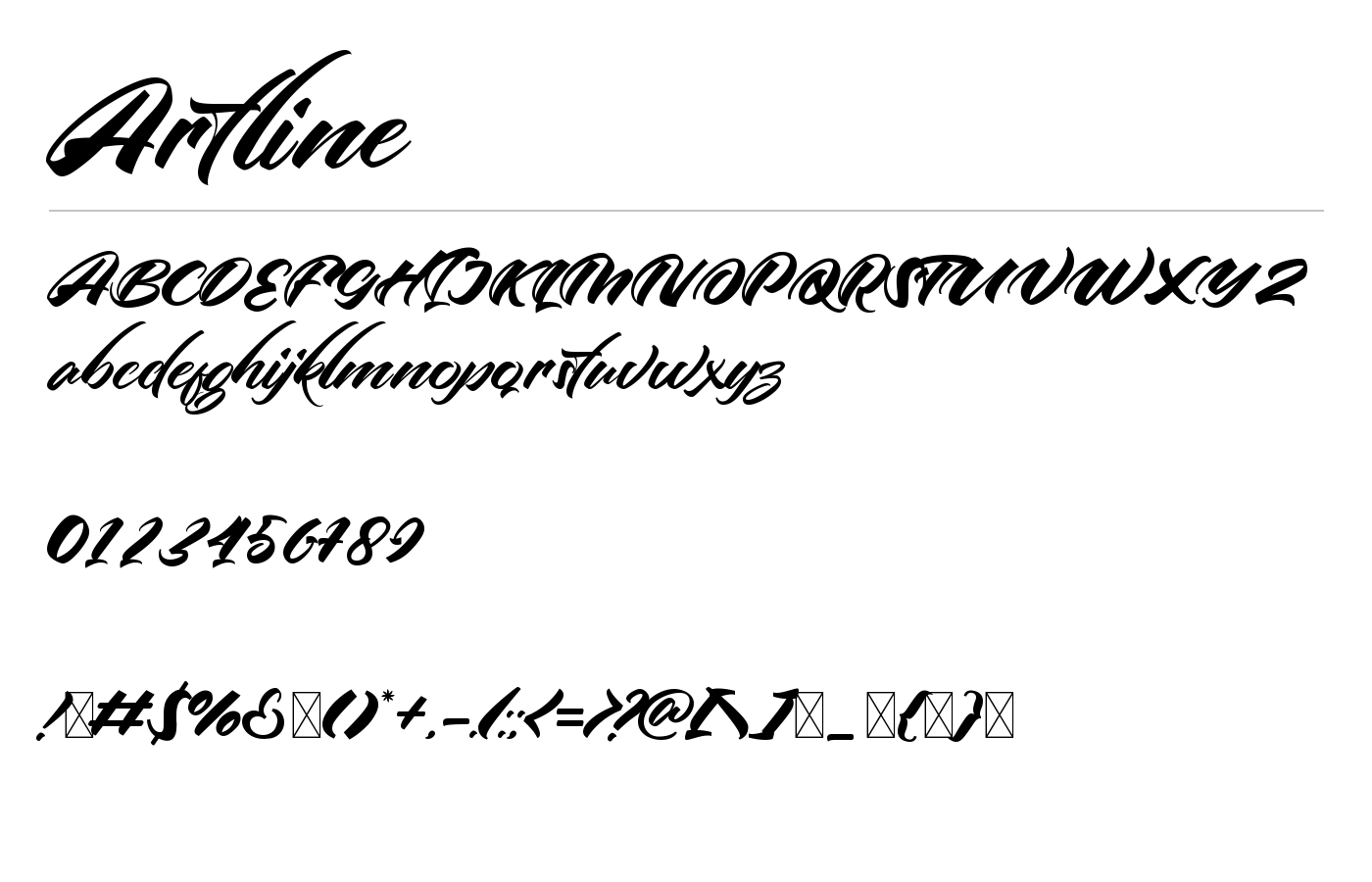
Artline is a bold and elegant script font with smooth, flowing strokes that evoke a sense of creativity and sophistication. Its high contrast between thick and thin lines, combined with dynamic letterforms and a slightly condensed style, makes it perfect for eye-catching logos, invitations, and stylish branding that aim to convey a modern yet artistic feel. This font shines in settings where a personal, handcrafted touch is desired, especially in fashion, beauty, or creative industries.
Artline Font